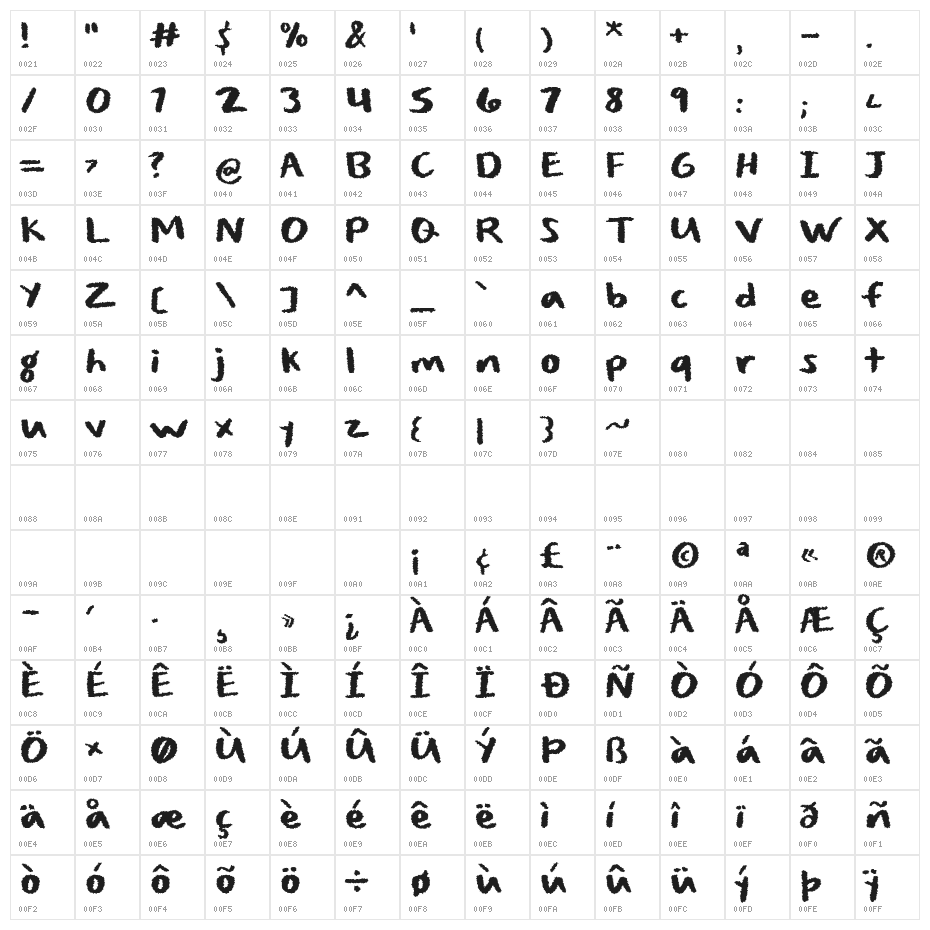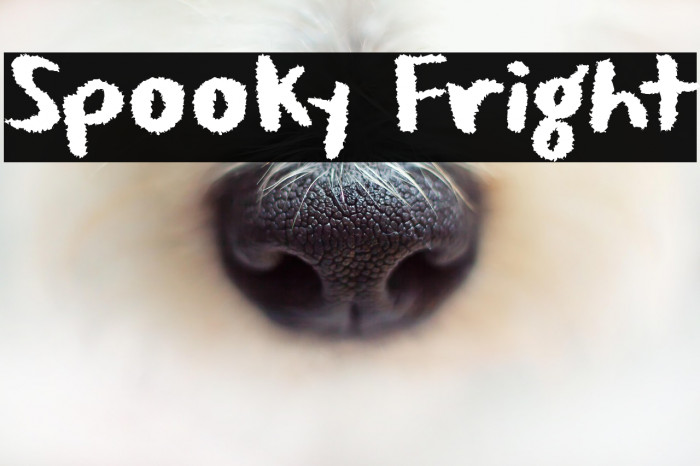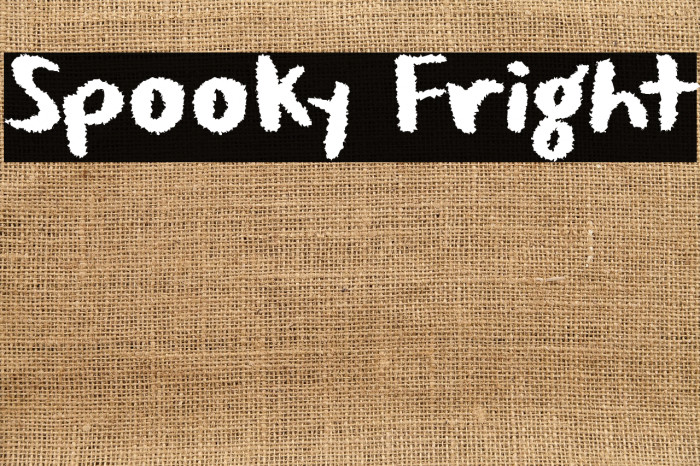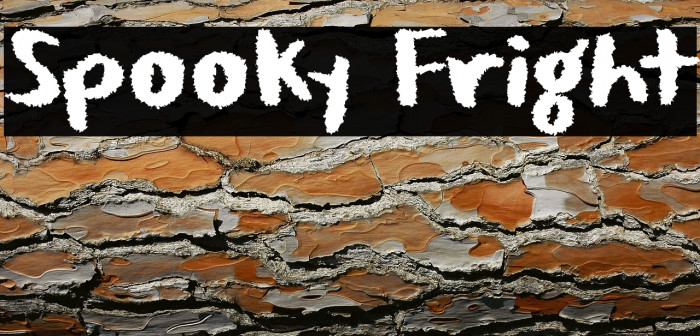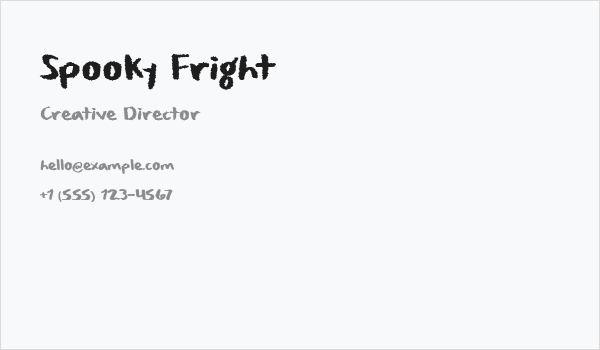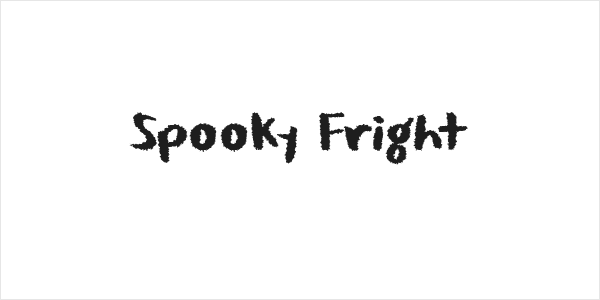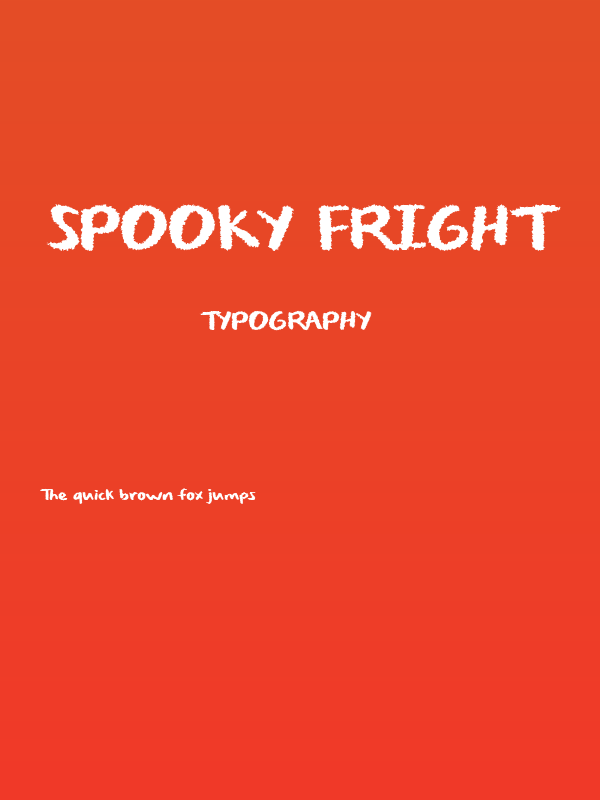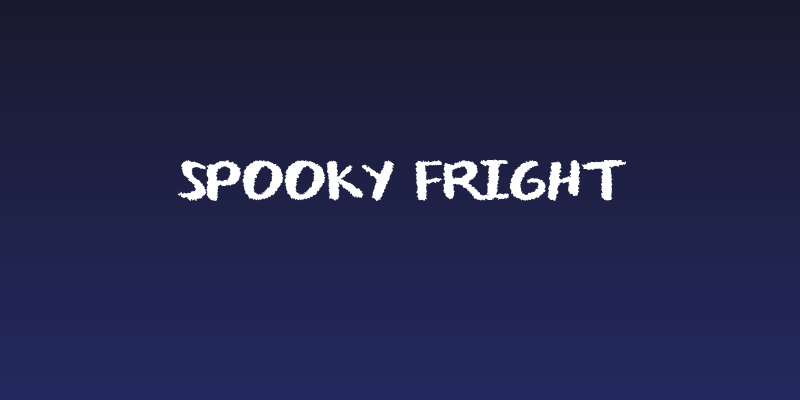
Spooky Fright Font
Spooky Fright Description
This font exudes a playful yet eerie vibe, perfect for Halloween-themed projects or anything requiring a spooky touch. The characters are bold and irregular, with a hand-drawn appearance that adds to its charm. The edges are jagged and uneven, giving it a rough, textured look reminiscent of scratchy handwriting. This style is highly decorative, making it ideal for eye-catching headlines or themed graphics. The font maintains consistent weight throughout, ensuring readability despite its quirky design.